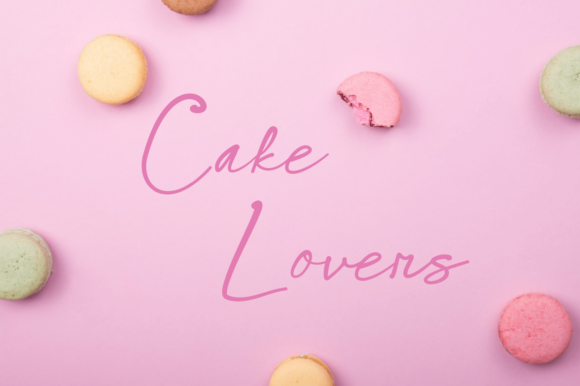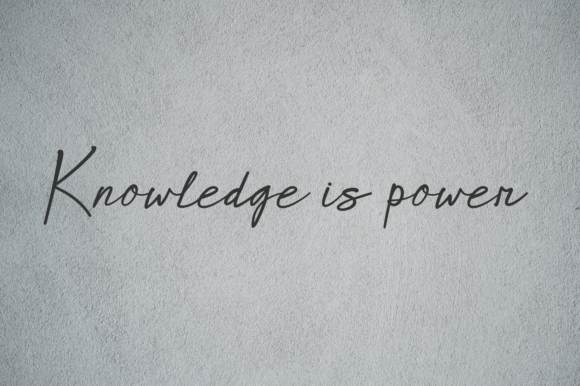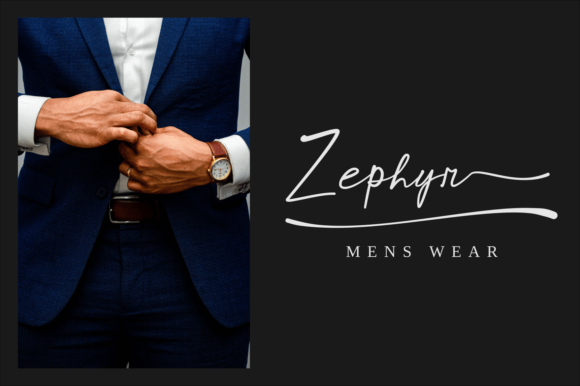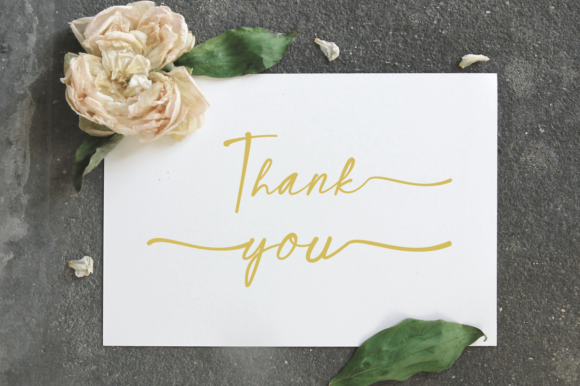
How Lovely Font
About How Lovely Font
How Lovely is a sweet and cursive handwritten font. This gentle font will look gorgeous on a variety of design ideas. It will add a joyful and romantic touch to each of your projects!